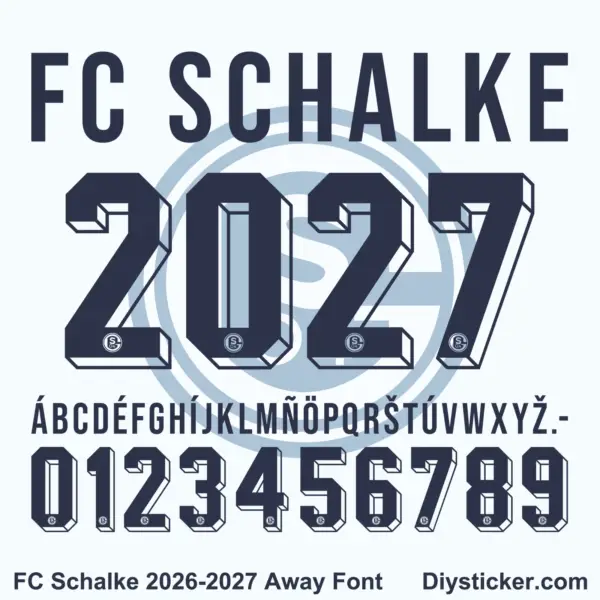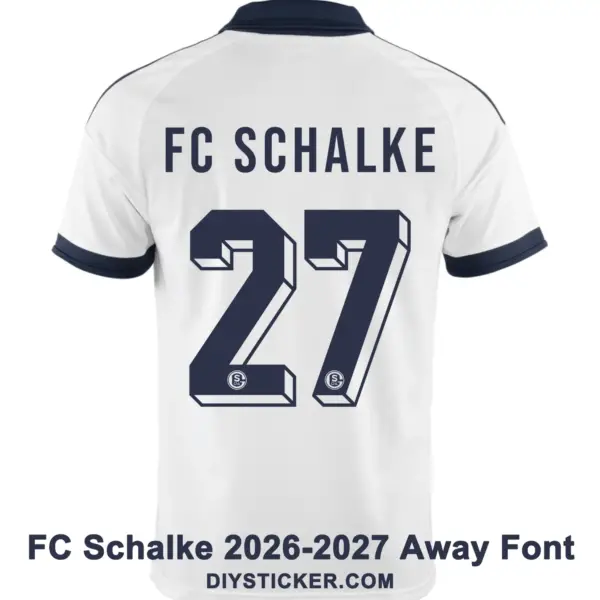
FC Schalke 2026-2027 Away Font & Numbers Download
Capture the legendary spirit of Die Knappen with this classic away kit typography set! This digital asset bundle features the FC Schalke 2026-2027 Away Font and Numbers in deep navy blue, designed with clean sans-serif lettering, sharp angular numeric chamfers, white 3D bevel effect outlines, and the official FC Schalke 04 crest integrated at the base of every digit.
Complete uppercase alphabet, squad numbers 0-9, and specific diacritic accents.
Elevate Your Kit Customization with the FC Schalke 2026-2027 Away Font
Upgrade your custom sports apparel catalog with the definitive away match typography for FC Schalke 04! This digital typography product delivers the full FC Schalke 2026-2027 away font style designed for German football league and cup campaigns. Featuring clean, condensed uppercase lettering, bold numeric block geometry with distinct 3D drop-shadow/extrusion line vectors, and the official S04 circular club crest embedded at the bottom of each squad number, this layout provides maximum contrast against light and white kit backgrounds.
Comprehensive Character Mapping
A-Z Uppercase Alphabet: Tall, condensed sans-serif letters built for high pitch visibility and clean spacing across player nameplates.
0-9 3D-Effect Squad Numbers: Bold navy-blue numeric glyphs with clean dimensional 3D edge outlines and the official S04 crest neatly aligned at the base.
Special Accents & Diacritics: Complete set of punctuation marks and international accents (
Á,Ć,É,Ñ,Ö,Ř,Š,Ú,Ž, etc.) to accurately render names for star players.